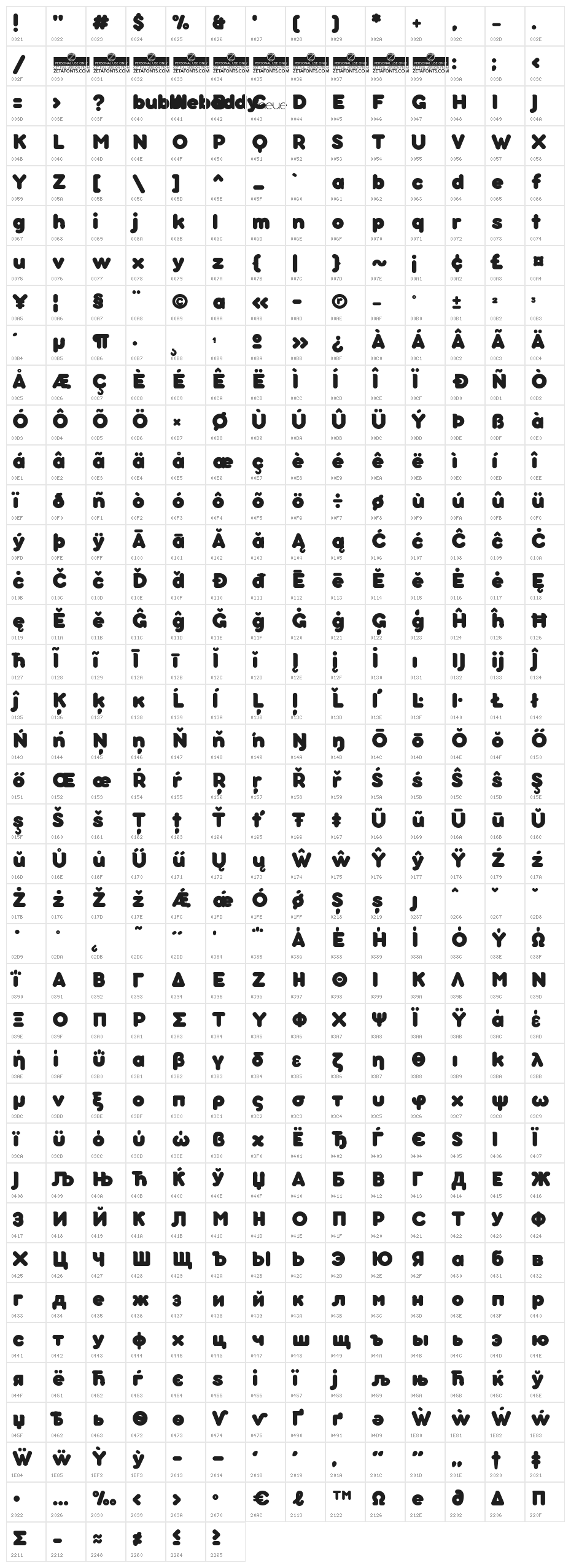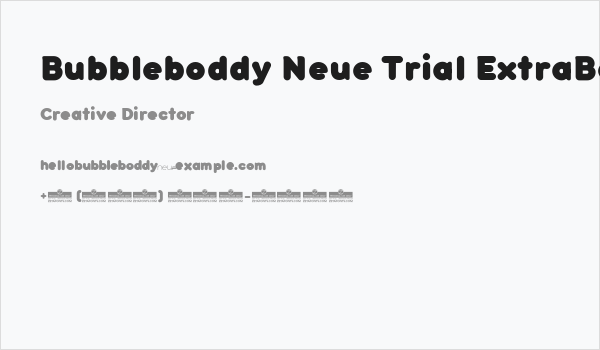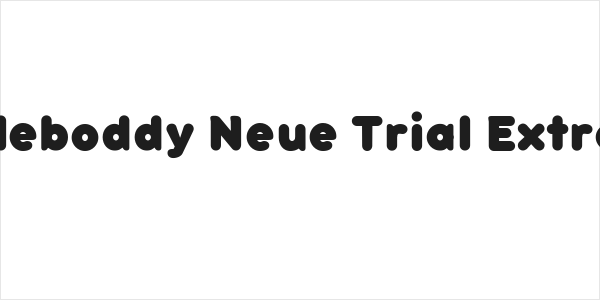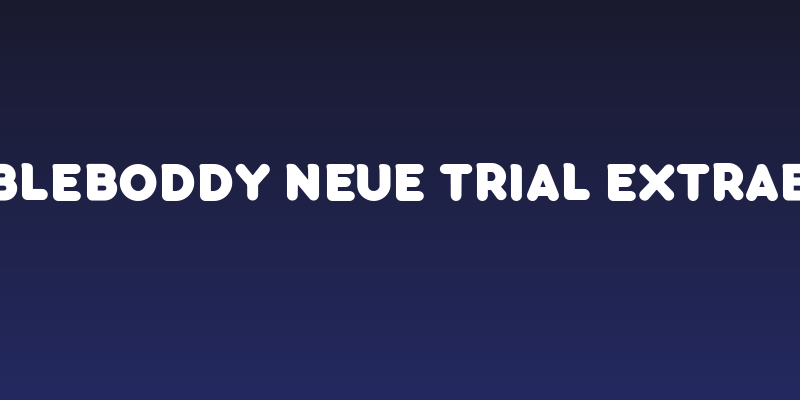
Bubbleboddy Neue Trial ExtraBold Font
Bubbleboddy Neue Trial ExtraBold Description
This font features a playful and bold design with rounded edges and a bubbly appearance. The characters are thick and uniform, creating a sense of fun and approachability. The uppercase and lowercase letters maintain a consistent style, with a slight variation in size and shape to distinguish them. The numbers and special characters follow the same design principles, ensuring a cohesive look across all elements. The font's overall appearance is modern and friendly, making it suitable for a variety of creative projects.
| Proposed Projects | Ideal for children's books, playful branding, posters, and social media graphics. |